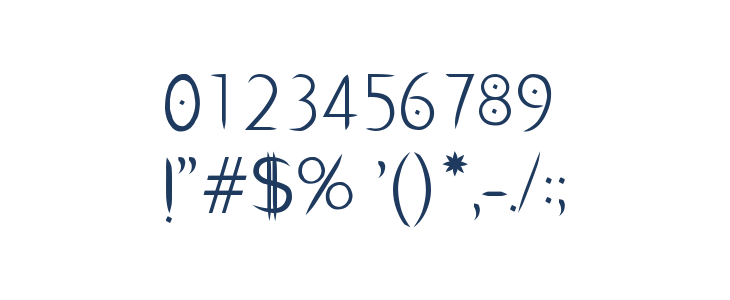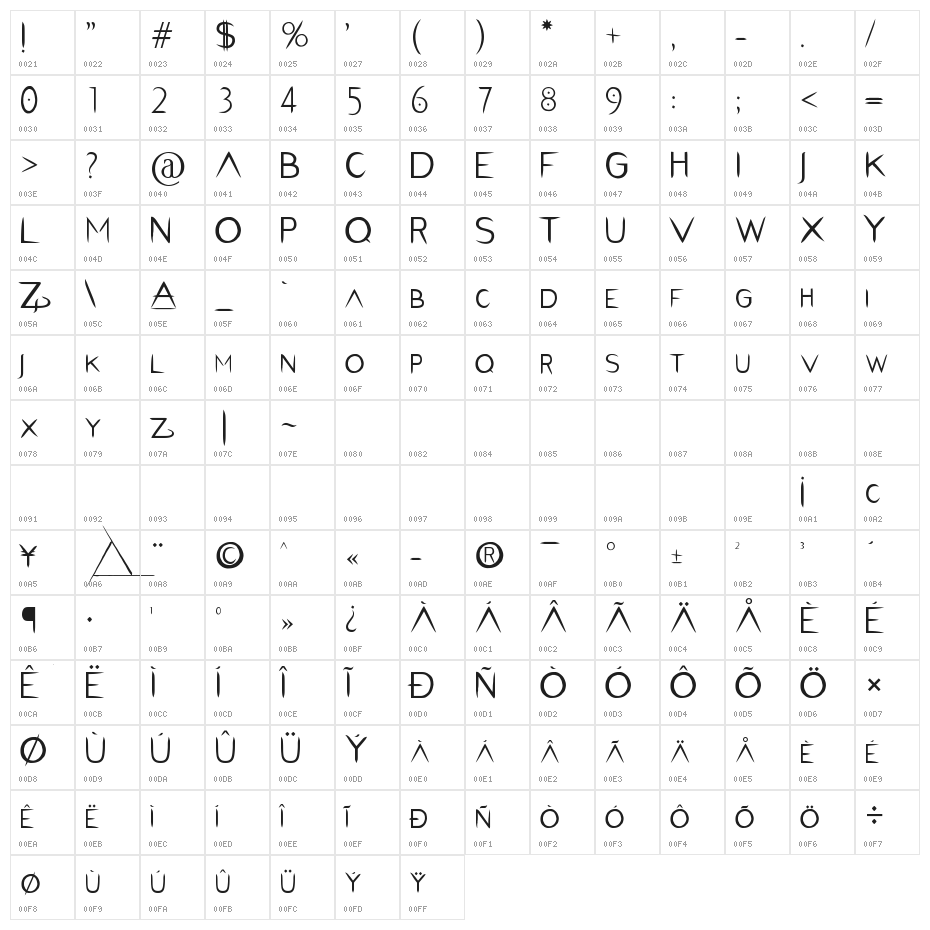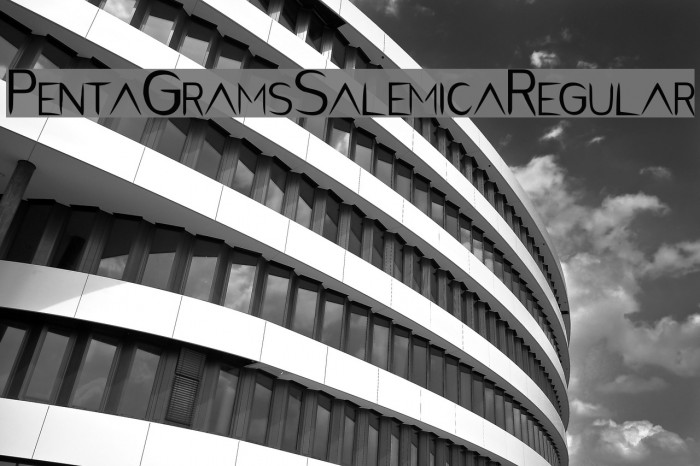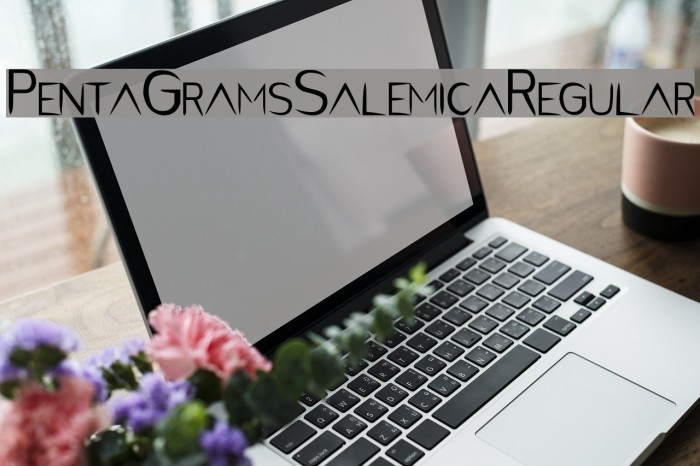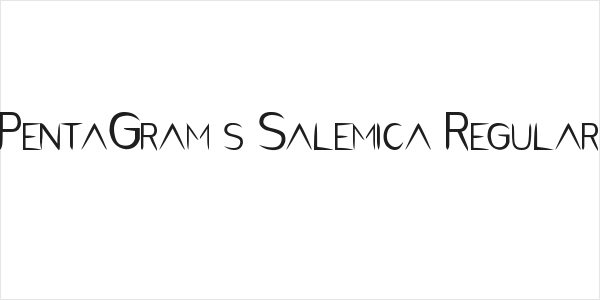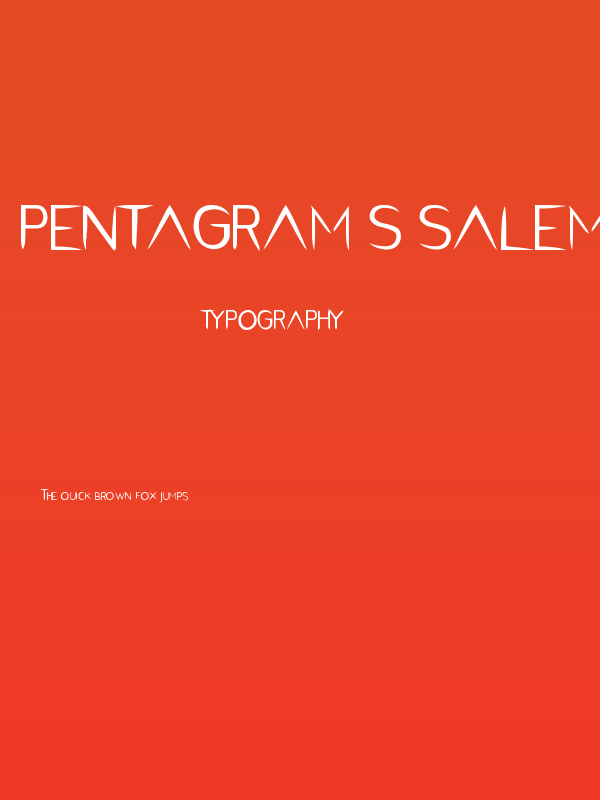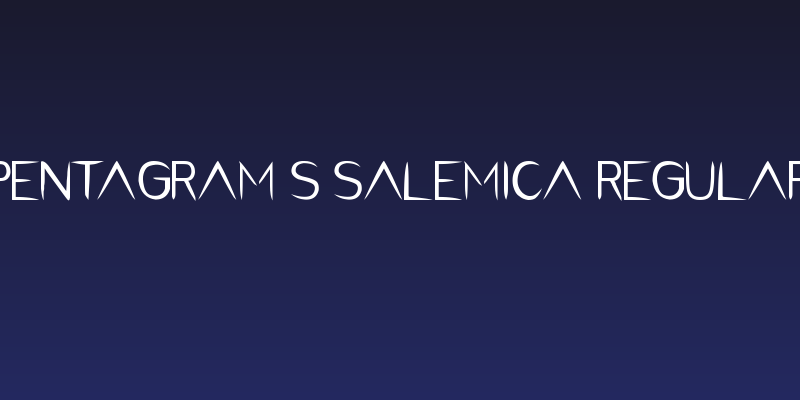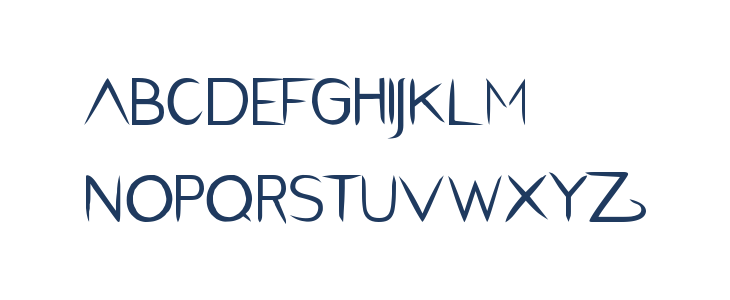
PentaGram s Salemica Regular Font
PentaGram s Salemica Regular Description
This font features a unique and artistic style with sharp, angular lines and a slightly gothic influence. The uppercase letters are bold and dramatic, with distinct pointed edges that give them a striking appearance. The lowercase letters maintain the same angular aesthetic, creating a cohesive look throughout the typeface. Numbers are designed with a similar flair, incorporating circular elements that add a touch of whimsy. Special characters are creatively styled, enhancing the overall decorative feel of the font. This typeface is ideal for projects that require a bold and unconventional look.
| Proposed Projects | Ideal for use in fantasy-themed designs, book covers, posters, and branding that requires a dramatic and unique touch. |